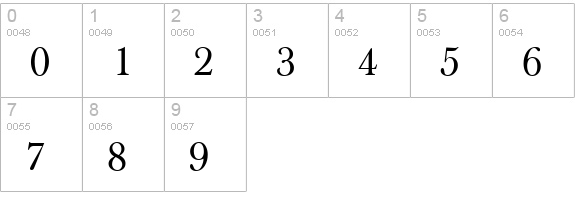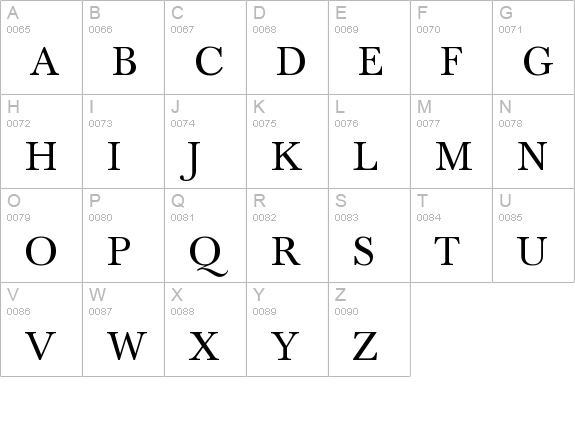
BaskervilleTwo-Regular Font Details
BaskervilleTwo-Regular is the standard, neutral variant in the BaskervilleTwo typeface family \xE2\x80\x94 well suited to general body text, paragraphs, and standard typographic work.
BaskervilleTwo-Regular font is a timeless and elegant typeface that exudes sophistication and classic charm. Its clean lines and balanced proportions make it perfect for a wide range of design projects, from print materials to digital applications. With its traditional yet modern aesthetic, BaskervilleTwo-Regular font is versatile and easily adaptable to various design styles and themes. Whether you are creating a vintage-inspired poster, a sleek website layout, or a stylish branding package, this font will add a touch of refinement to your work. Best of all, BaskervilleTwo-Regular font is available for free download at FontsMarket.com. This means that you can access this high-quality typeface without any cost, making it a valuable addition to your font collection. Don't miss out on the opportunity to enhance your designs with the timeless beauty of BaskervilleTwo-Regular font.